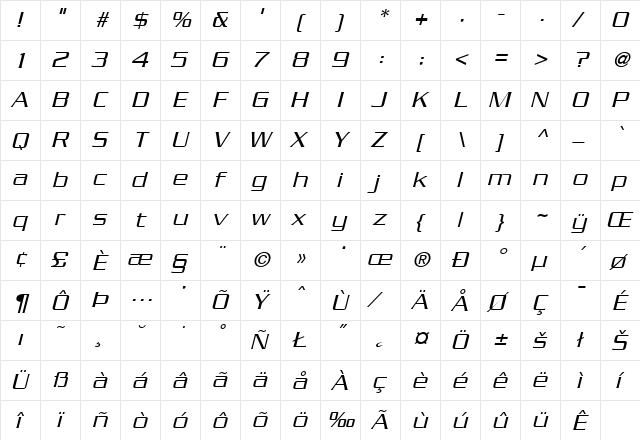
SerpentineLightOblique Regular Font Preview
Design Context for SerpentineLightOblique Typeface
SerpentineLightOblique is a composed and adaptable typeface that performs quietly and consistently across a wide range of design contexts. The slanted form adds forward momentum and visual energy. Its slender proportions lend an understated elegance to any composition.
Pro Tip: Try SerpentineLightOblique for annotation and caption copy alongside an upright companion — the contrast in angle creates a dynamic but ordered typographic system.